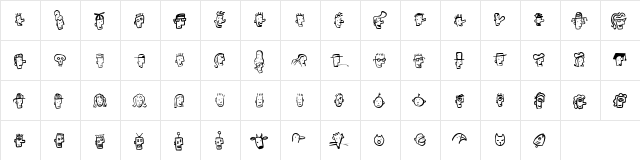
Font Heads Regular
Design Context for Font Heads Typeface
Font Heads is a composed and adaptable typeface that performs quietly and consistently across a wide range of design contexts.